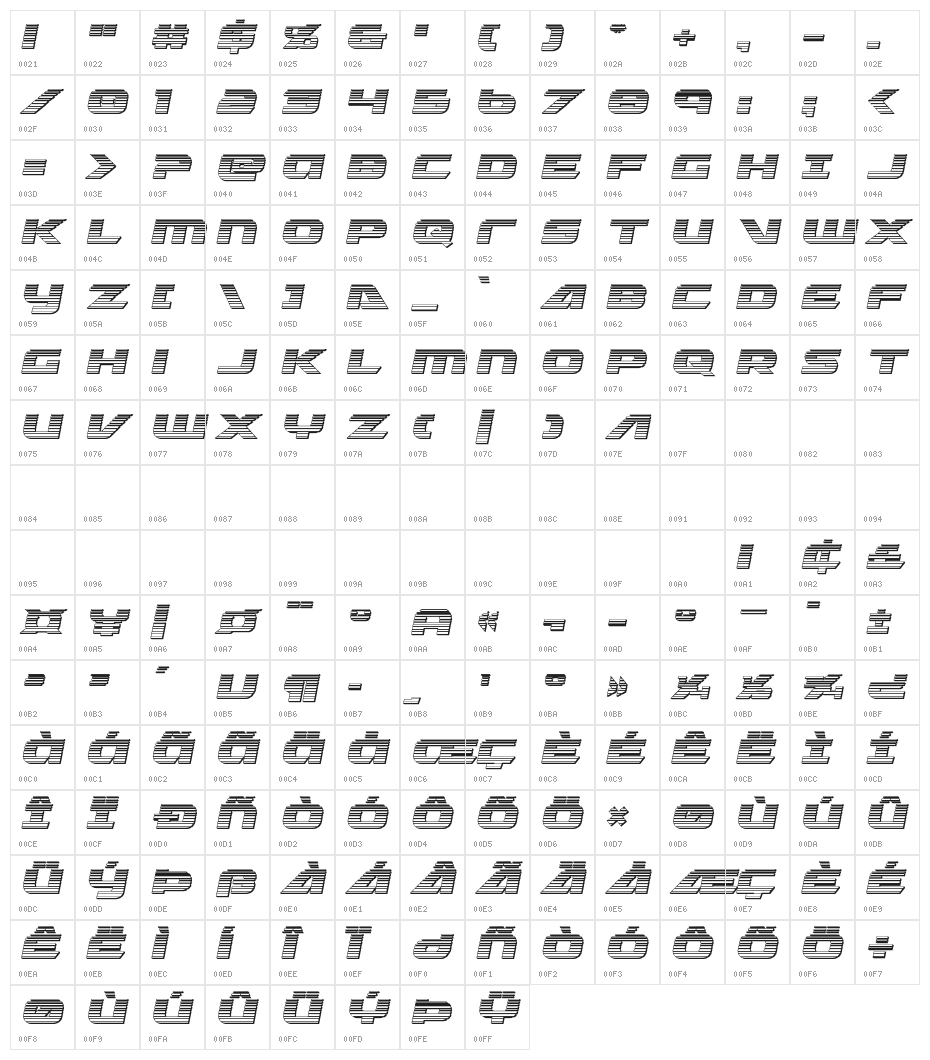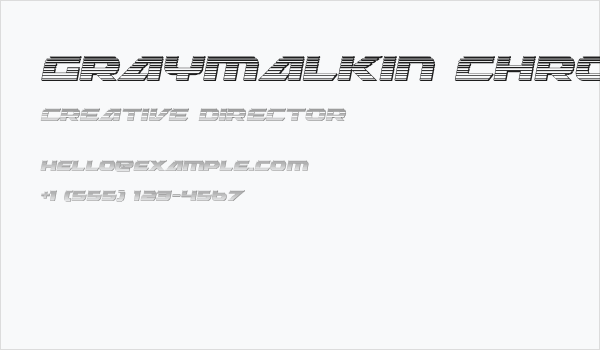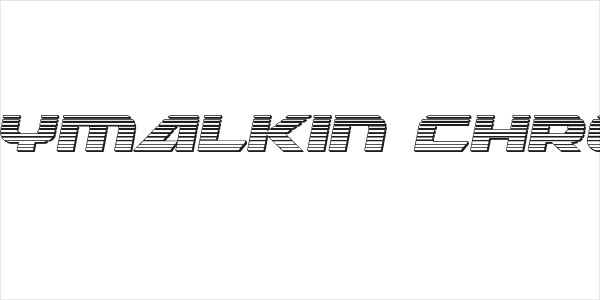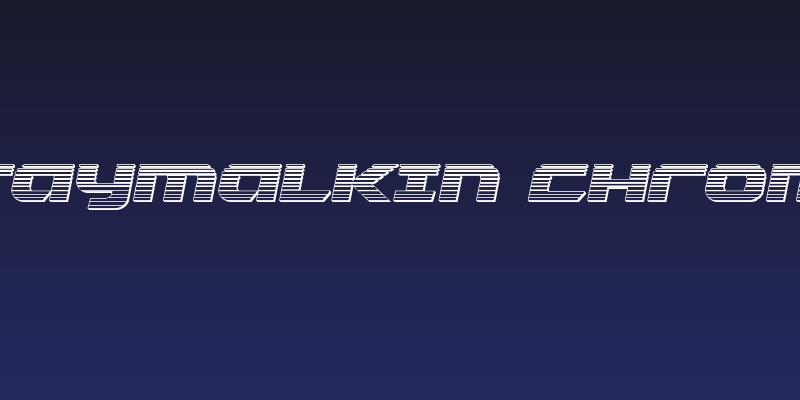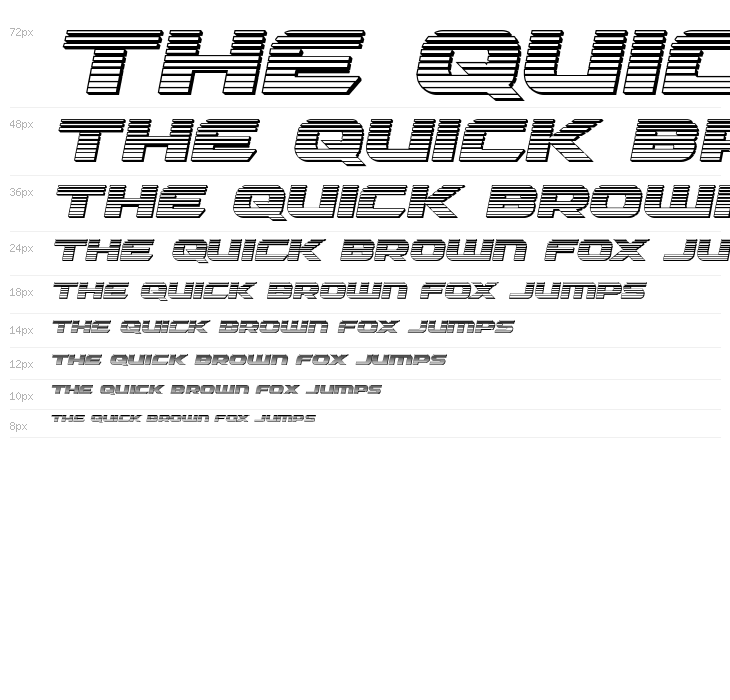
Graymalkin Chrome Font
Graymalkin Chrome Description
This font features a bold, futuristic design with a distinct chrome-like appearance. Each character is composed of multiple parallel lines, creating a striped effect that gives the font a sense of depth and dimension. The geometric structure of the letters is consistent, with sharp angles and clean lines that convey a modern and technological feel. The uppercase and lowercase letters maintain a uniform style, while the numerals and special characters blend seamlessly with the overall aesthetic. This font's unique design makes it stand out, ideal for projects that require a strong visual impact.
| Proposed Projects | Ideal for technology branding, sci-fi themed designs, video game titles, and futuristic posters. |